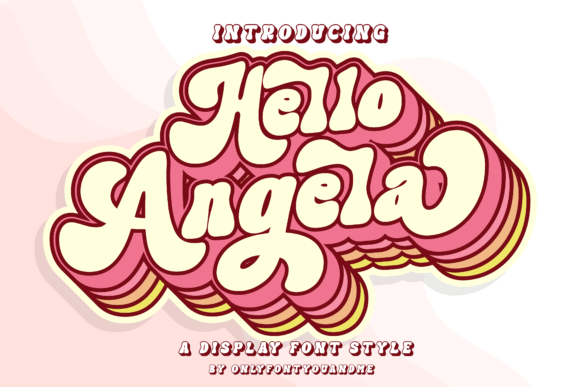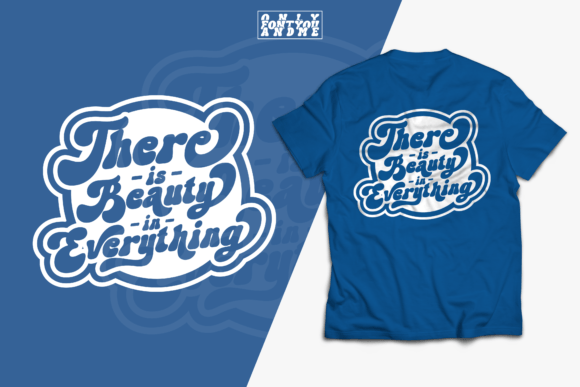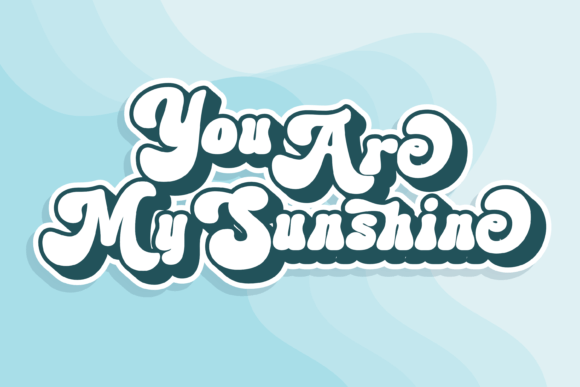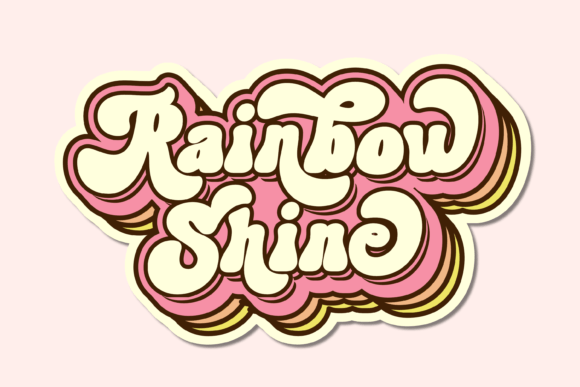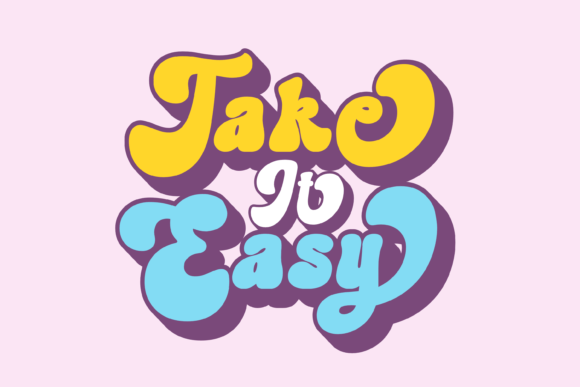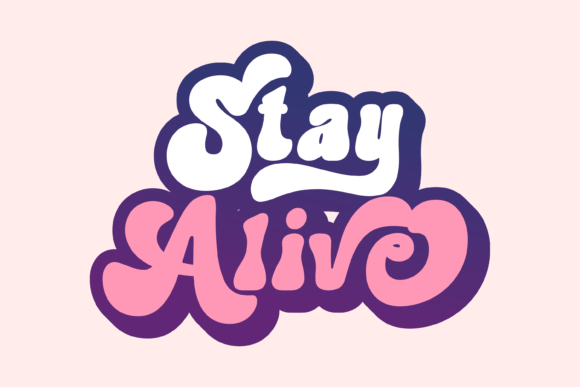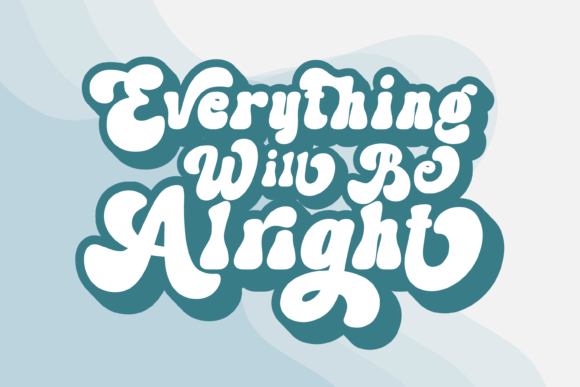
Hello Angela
Hello Angela Font: Playful Display Typeface for Headlines & Logos
Meet Hello Angela – the display font that dances across your designs with irresistible charm. This PUA-encoded typeface combines whimsical character shapes with professional OpenType features, giving you the perfect balance of fun and functionality for projects that demand personality.
Why Designers Love Hello Angela
• Expressive Glyphs: 80+ alternates and ligatures
• Versatile Energy: Works for both cute and edgy designs
• Headline Perfection: Optimized for large-scale use
Standout Applications
Branding with Personality
Ideal for:
• Boutique shop logos
• Kids’ product packaging
• Cafe menu headings
Editorial Impact
Perfect for:
• Magazine feature titles
• Blog post headlines
• Social media quote graphics
Groovy Typography!